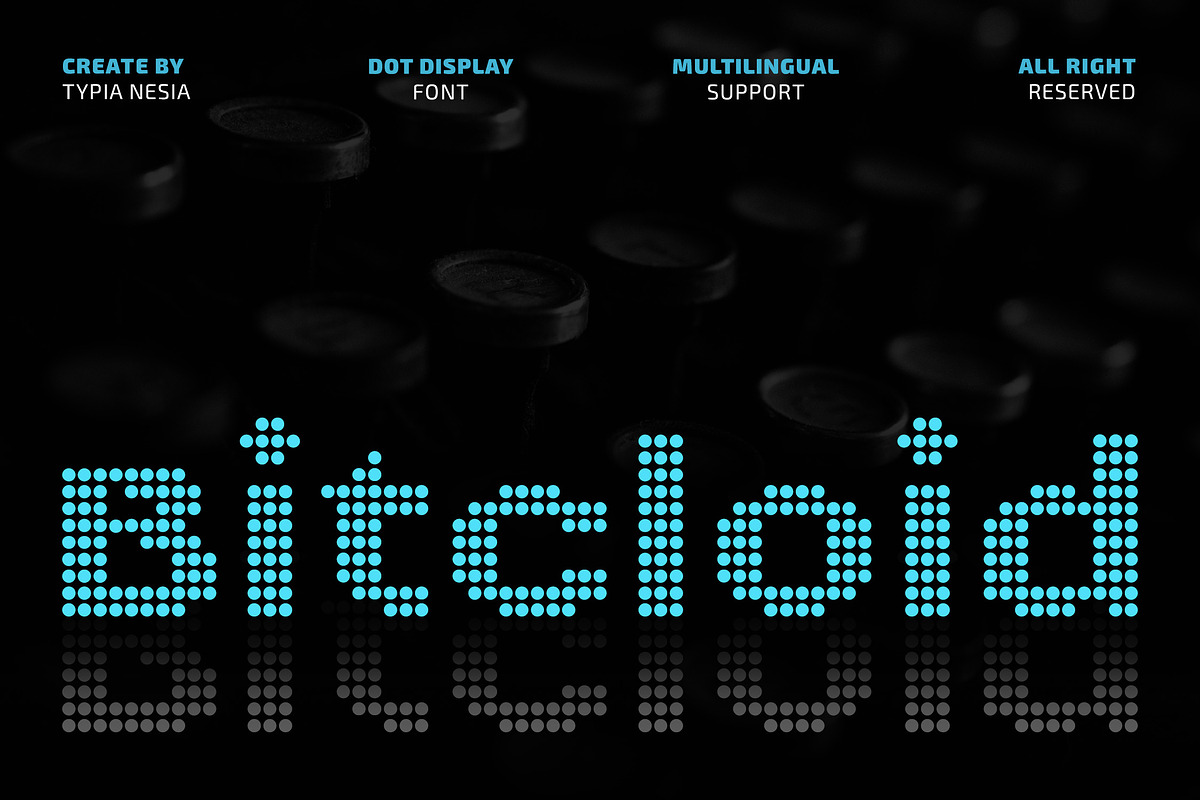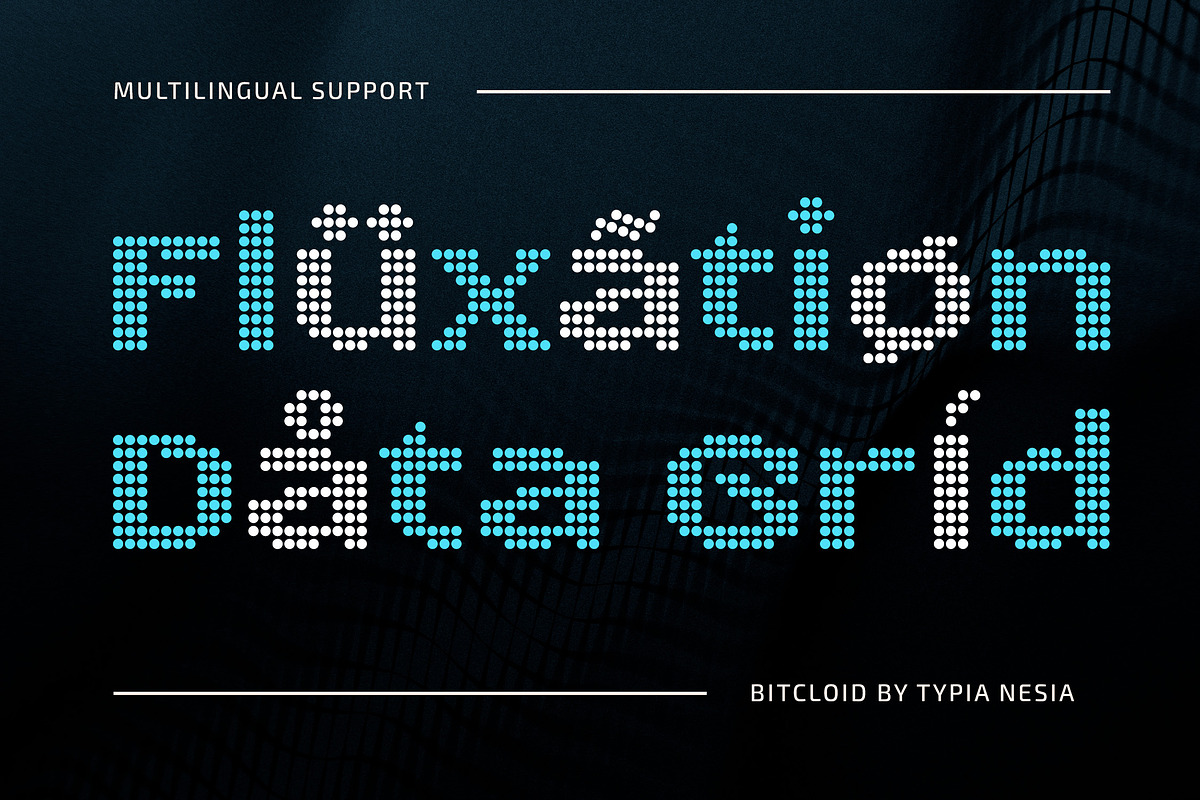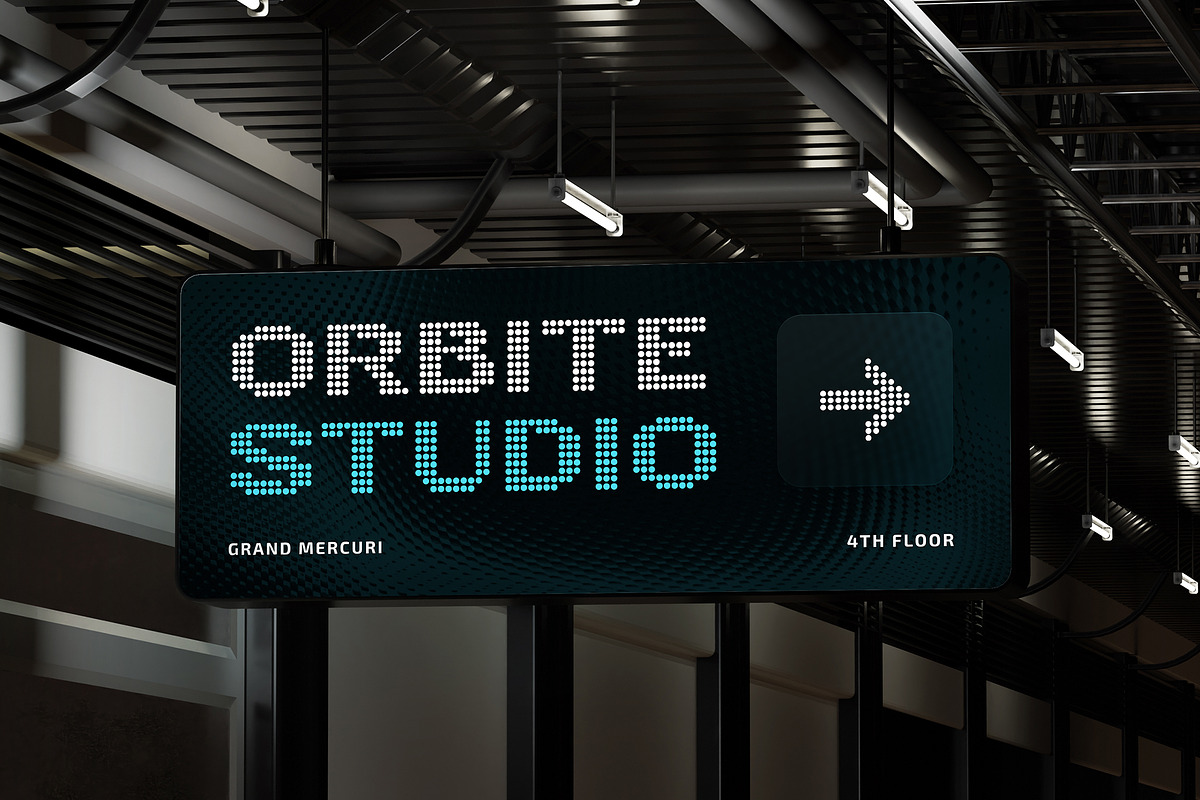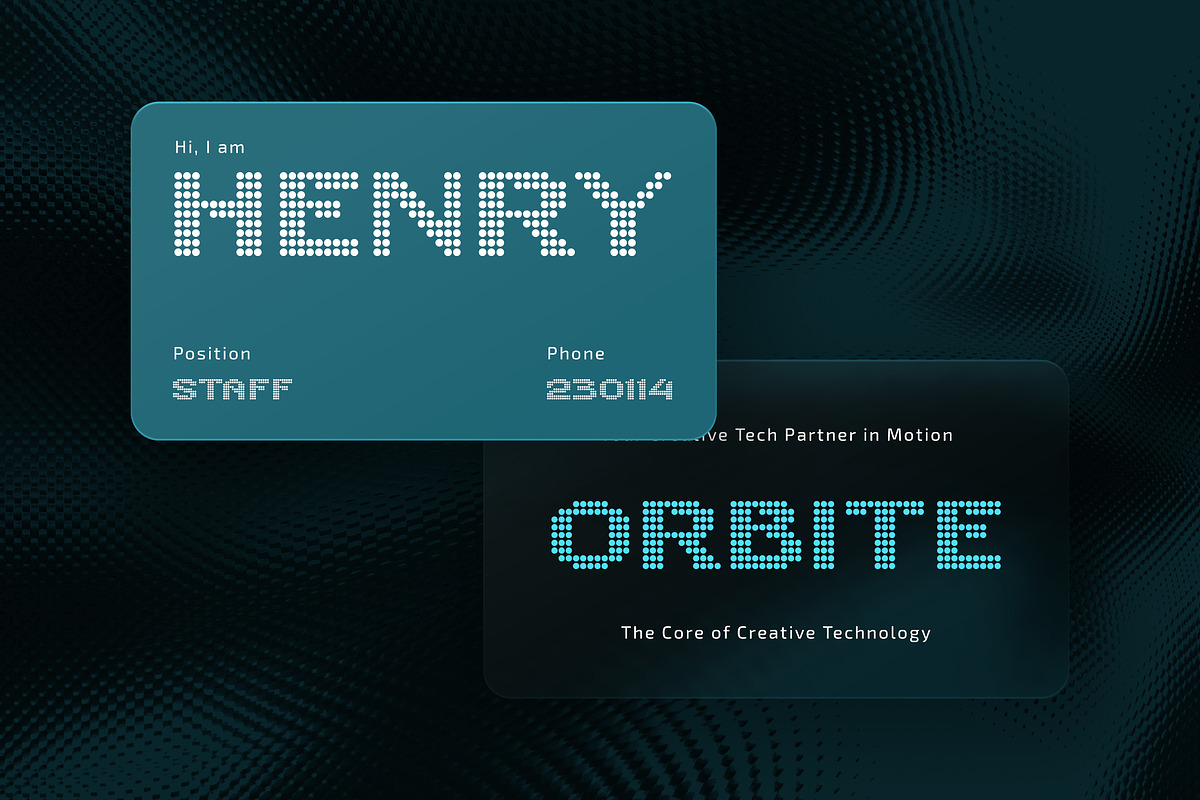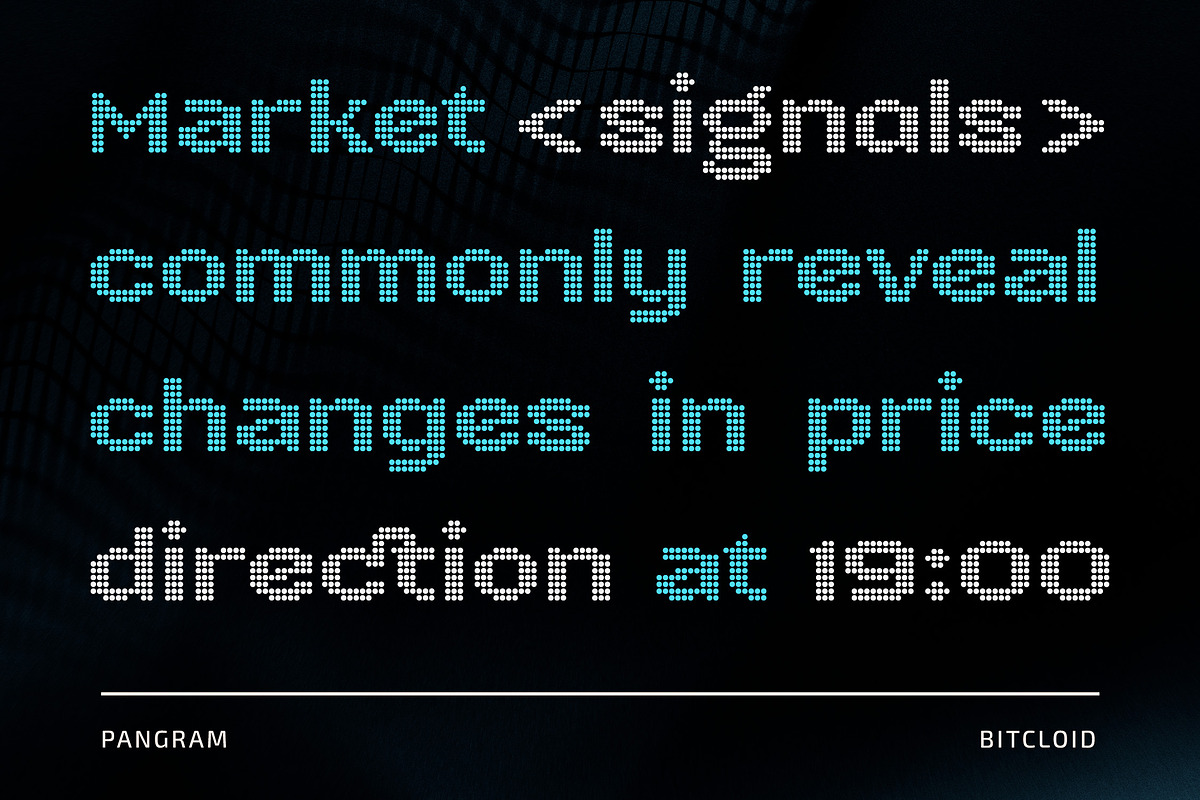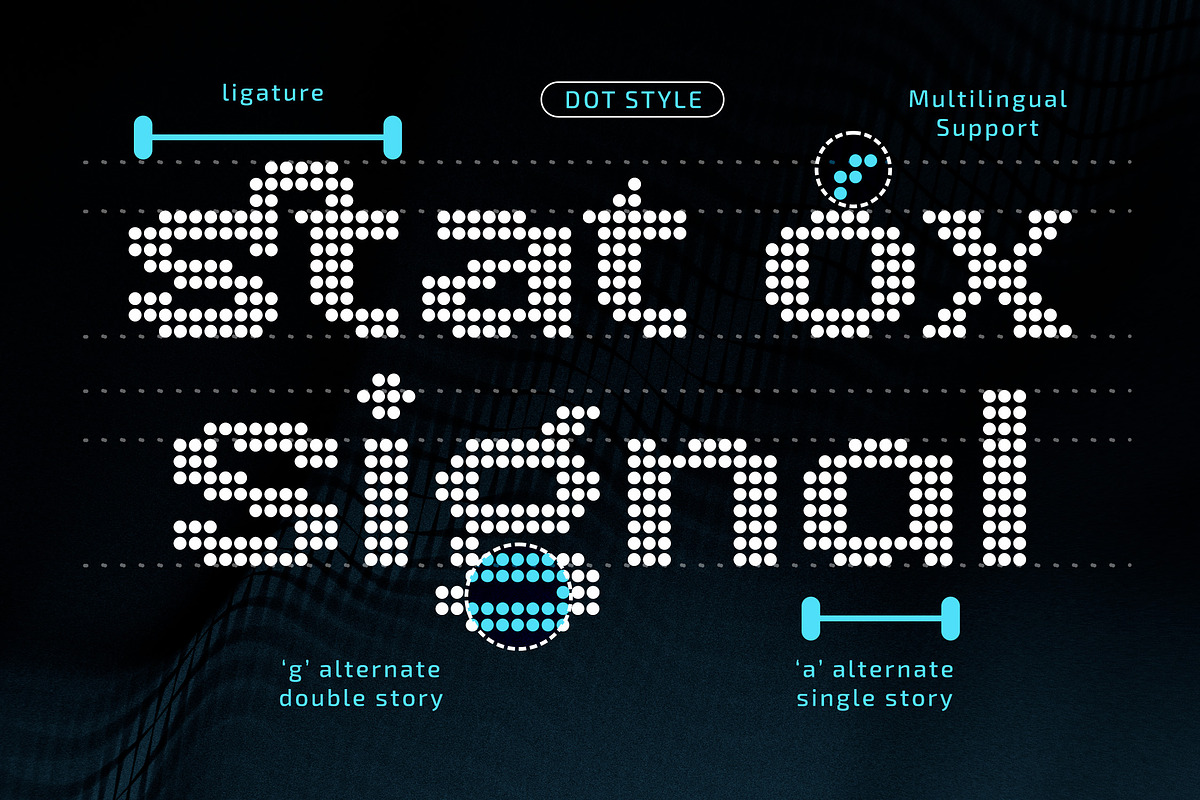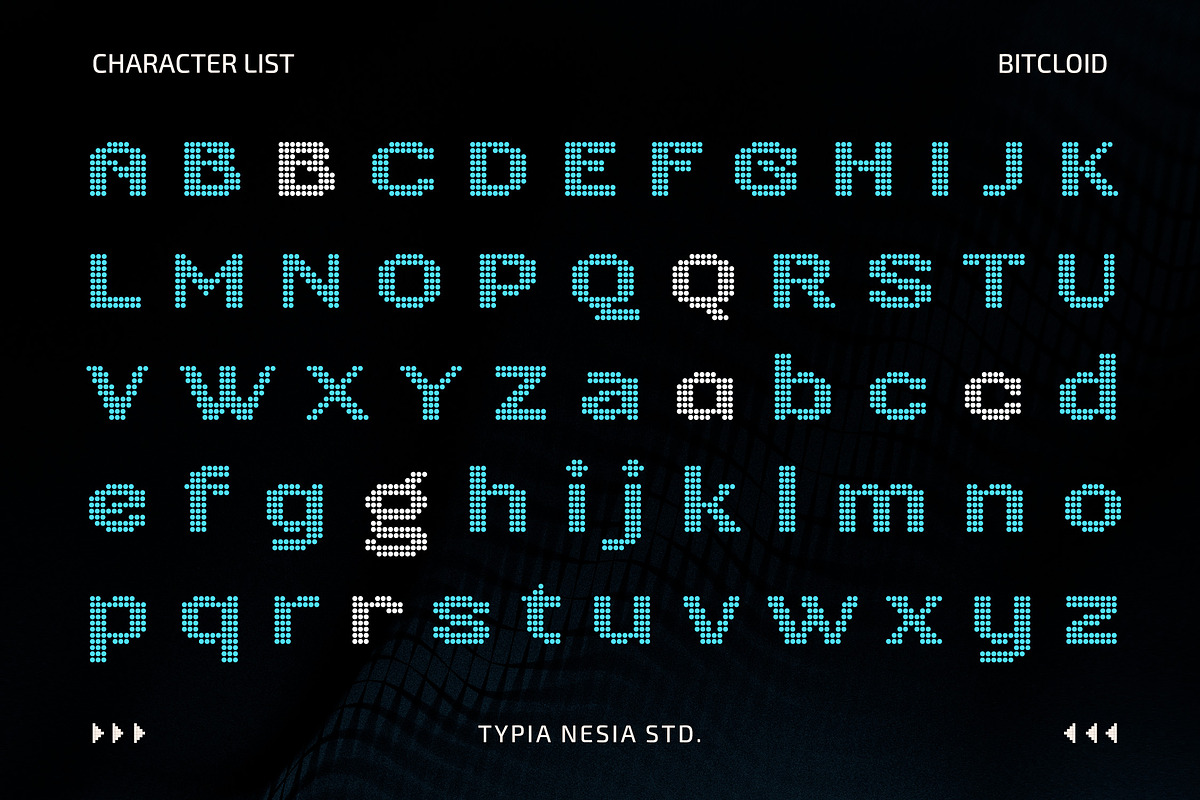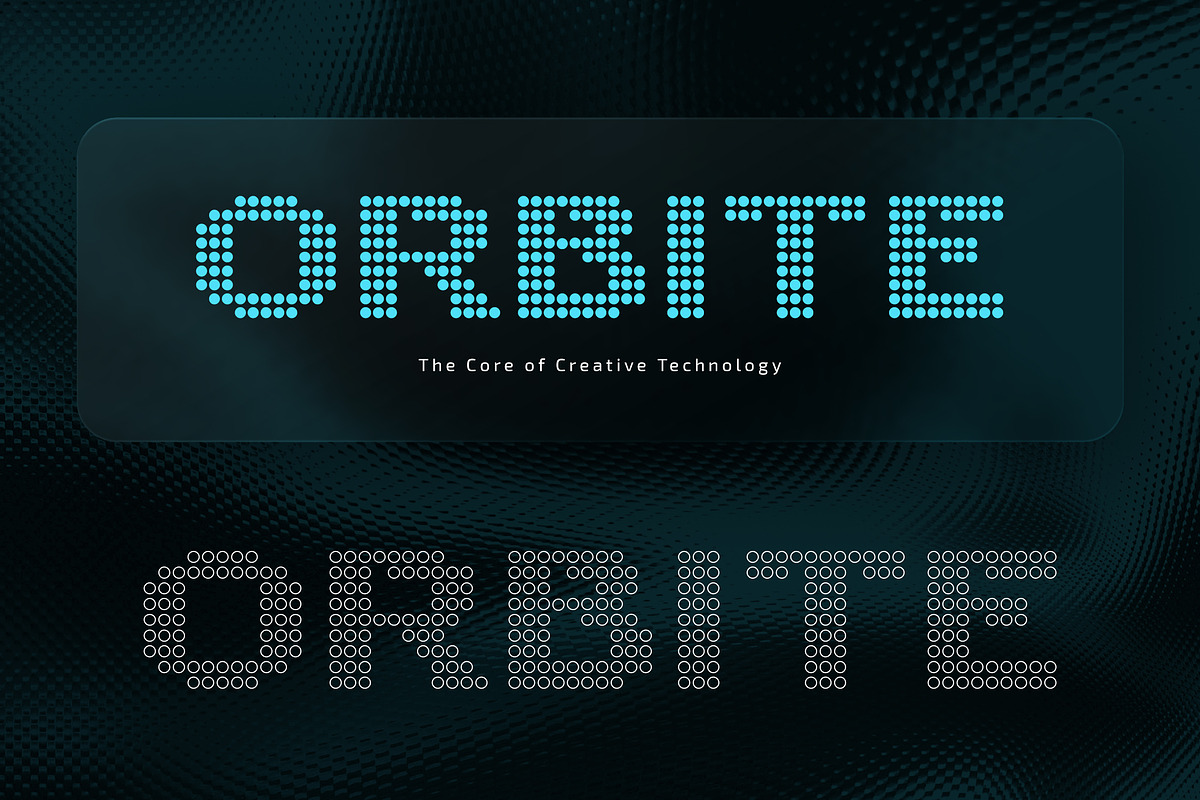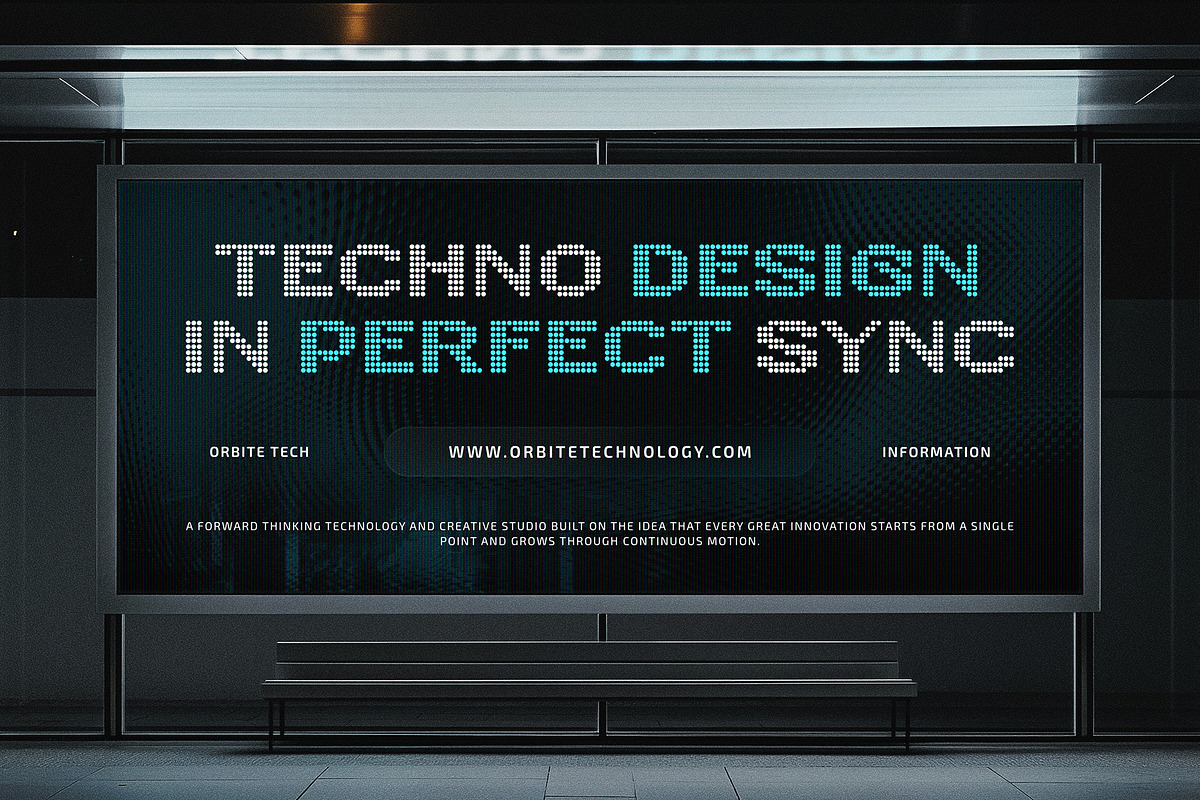
Bitcloid – Modern Futuristic Font
Bitcloid – Modern Futuristic Digital Dot Font - Game & Tech LED Display Font
Bitcloid is a modern futuristic digital dot font inspired by technology, cyber aesthetics, and retro pixel displays. Designed with modular dot structures and clean geometric shapes, this typeface delivers a high-tech, digital, and sci-fi atmosphere that stands out in modern visual design. With its expanded structure and modular design, Bitcloid works perfectly for game titles, tech branding, digital interfaces, neon-themed graphics, logos, cyberpunk visuals, and any project that requires a futuristic and technological identity.
Power up your futuristic designs with Bitcloid.